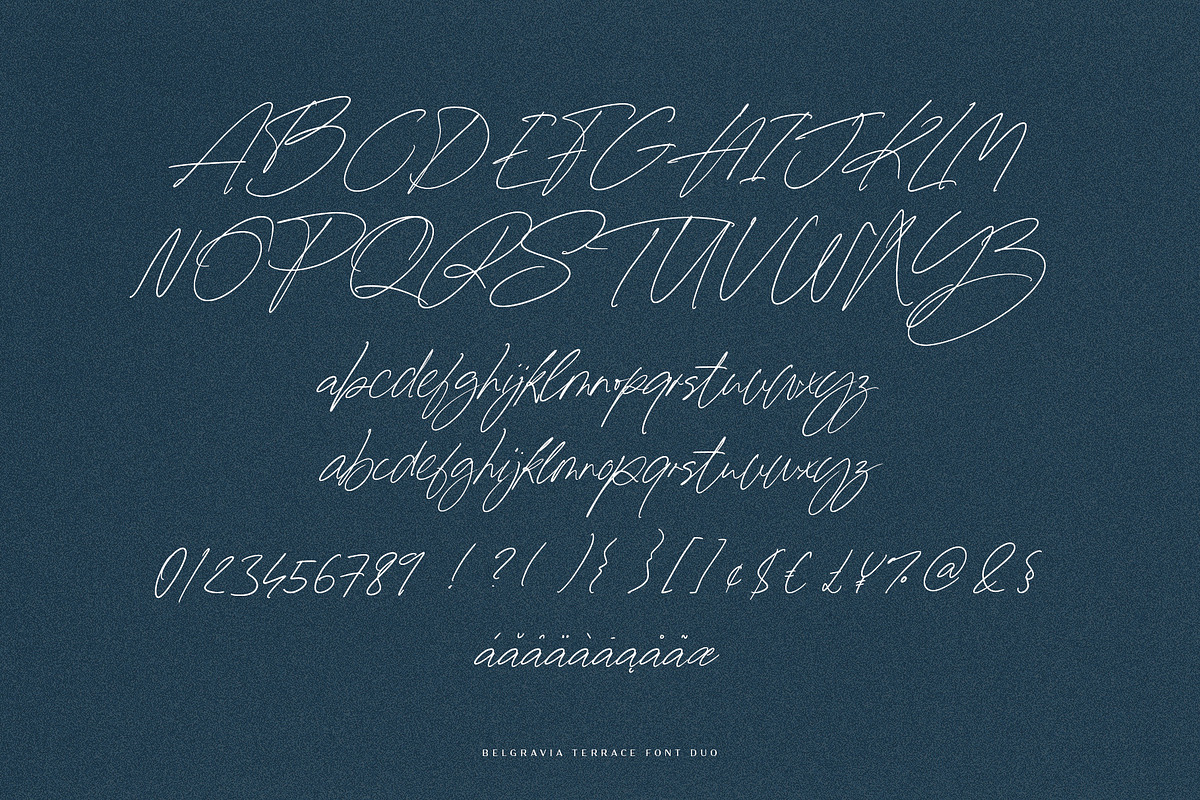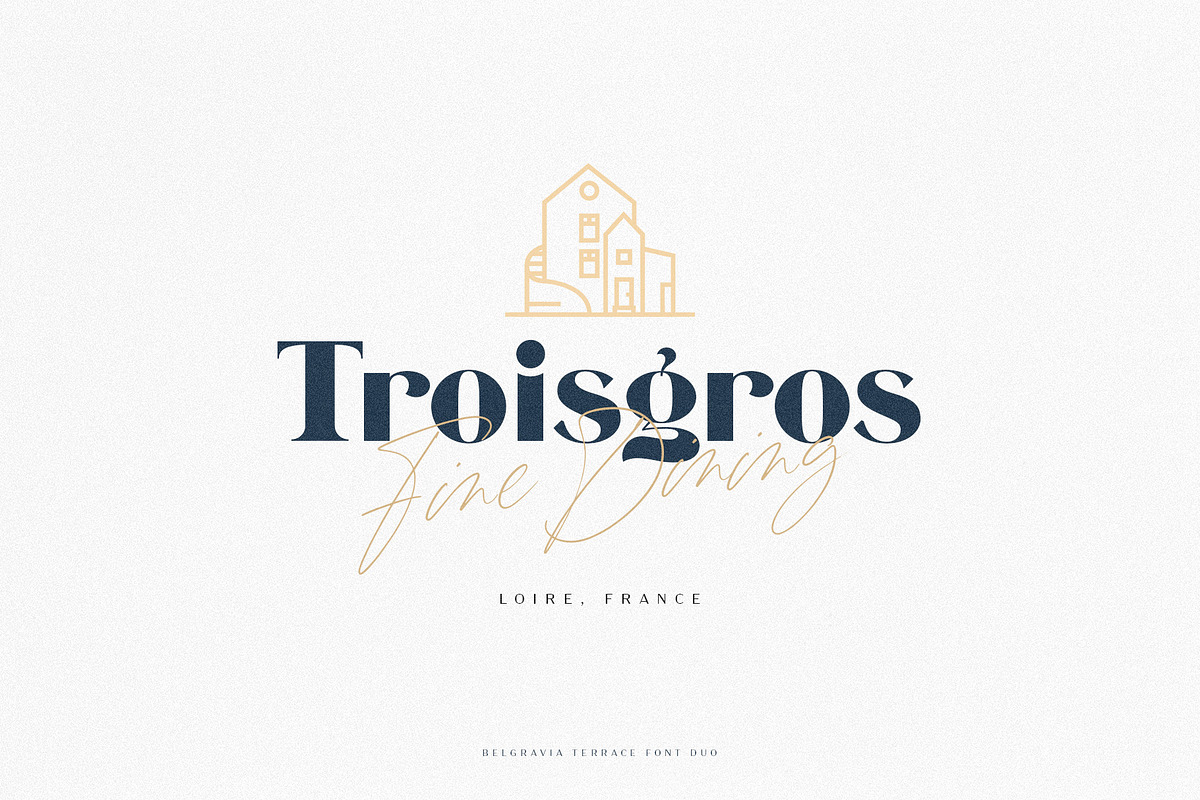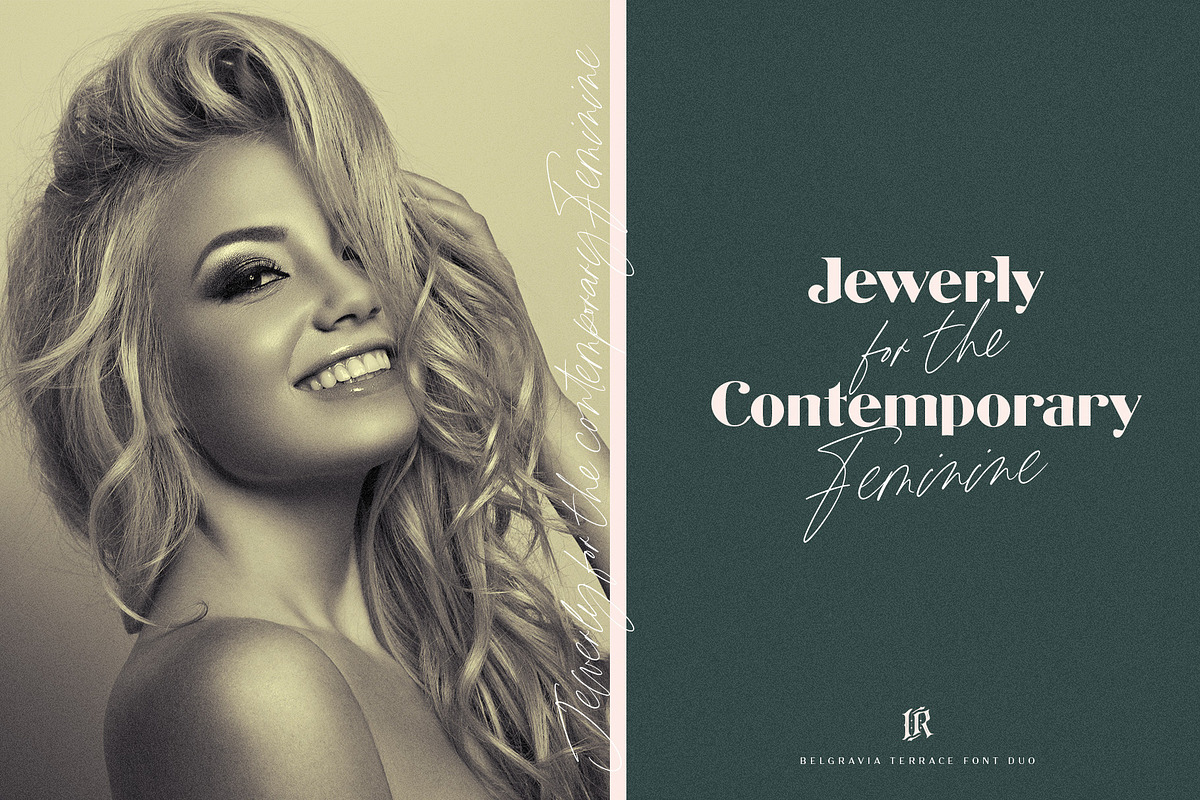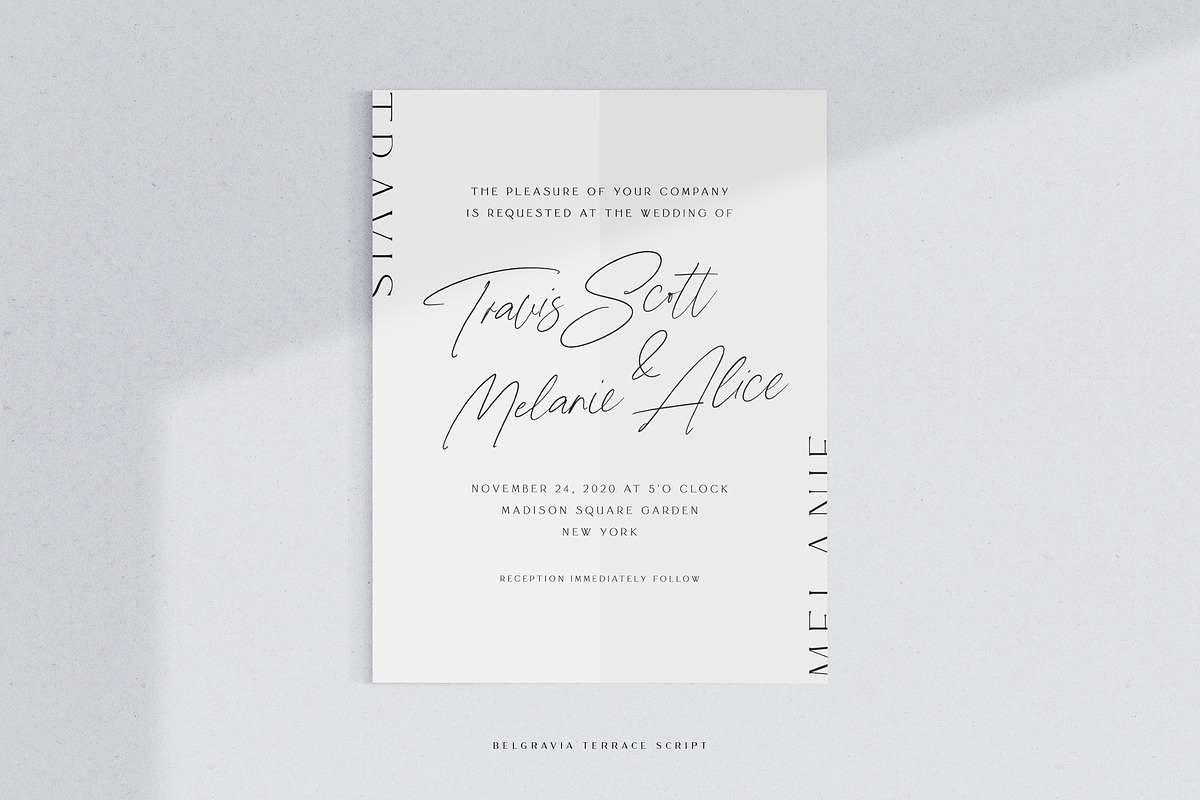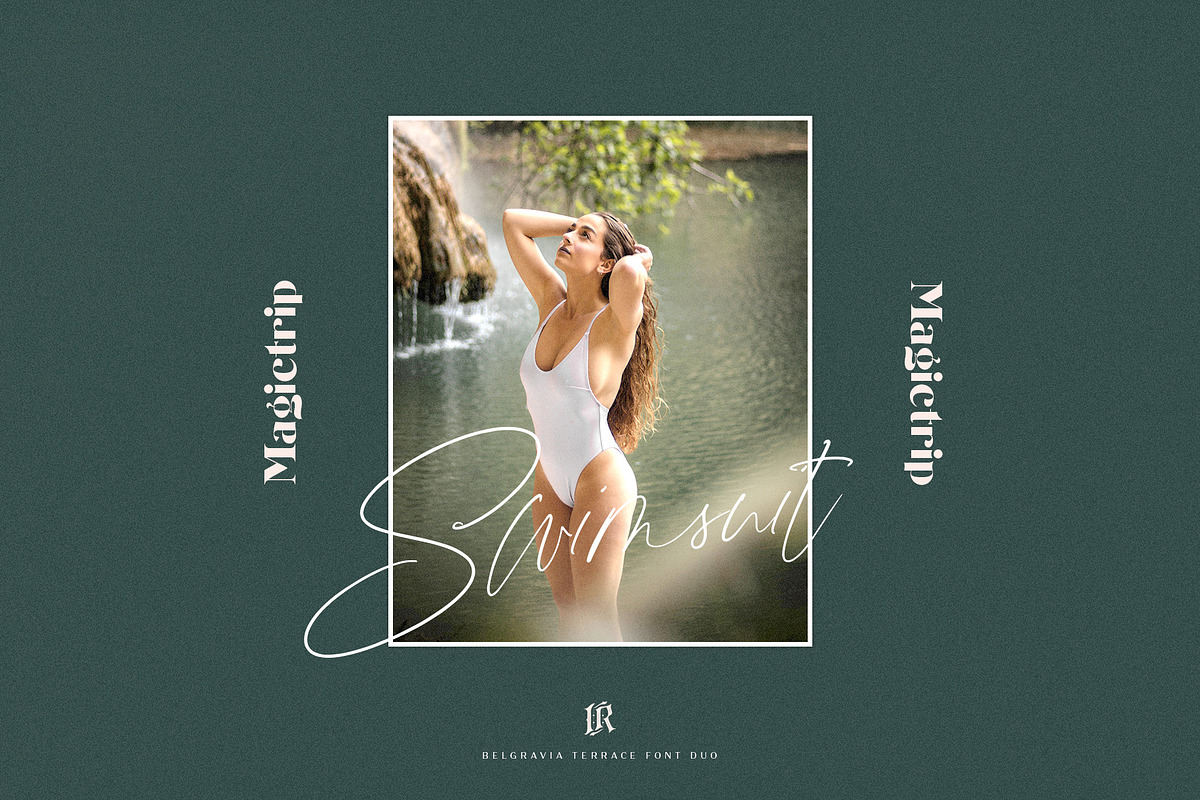
Belgravia Terrace Font Duo
Belgravia Terrace Font Duo is a modern serif font with perfect script pair. These are ideal for fashion, blog website, instagram, branding, invitations, business cards, weddings and many more. Script version also includes alternate characters for both UPPERCASE AND LOWERCASE letters, ligatures and stylistic alternates for different styles.
Supported Languages:Belgravia Terrace Font Duo has support for Western and Central Europe.
- Script version also includes alternate characters for both UPPERCASE AND LOWERCASE letters, ligatures and stylistic alternates for different
Why Belgravia Terrace Font Duo is worth a look
Belgravia Terrace Font Duo by Ivan Rosenberg fits naturally into Branding, posters, packaging, typography.